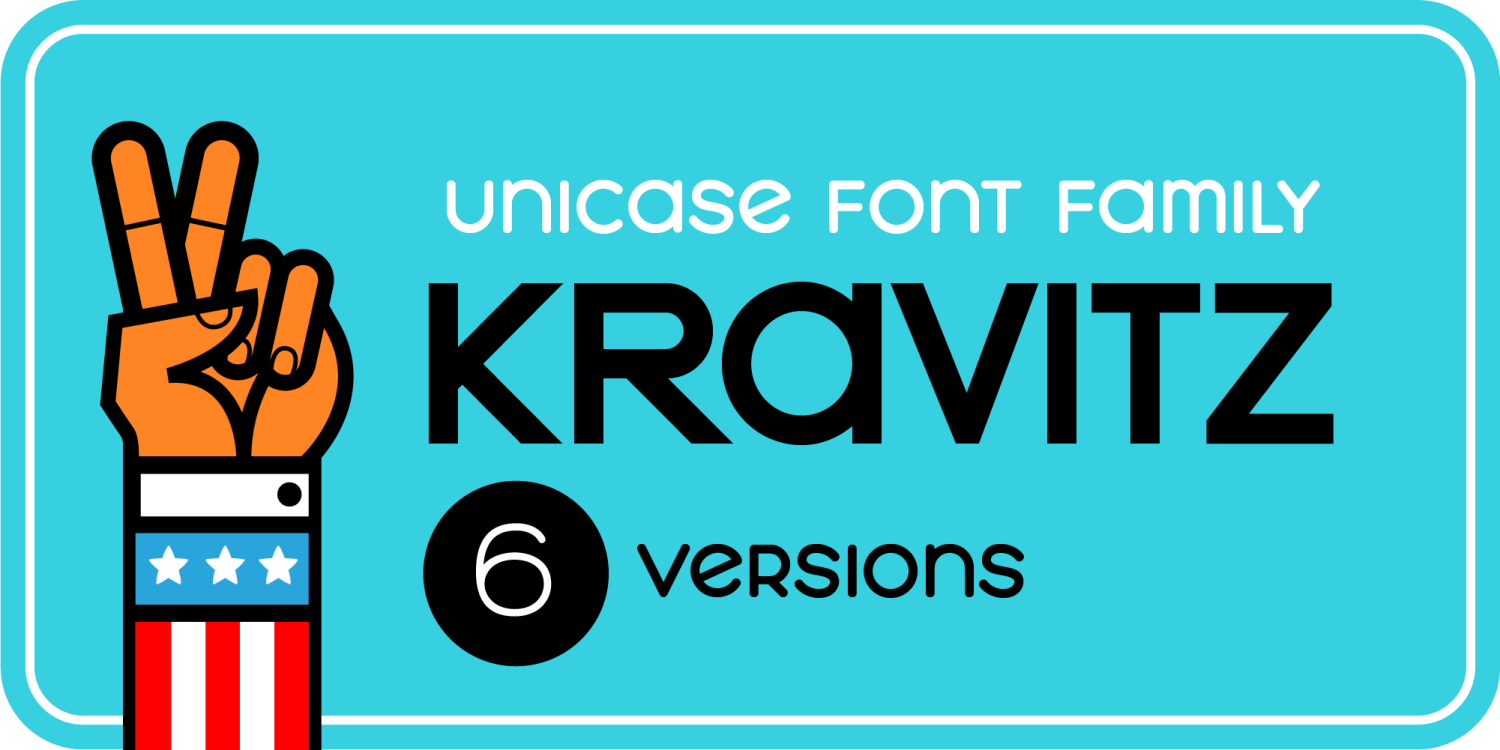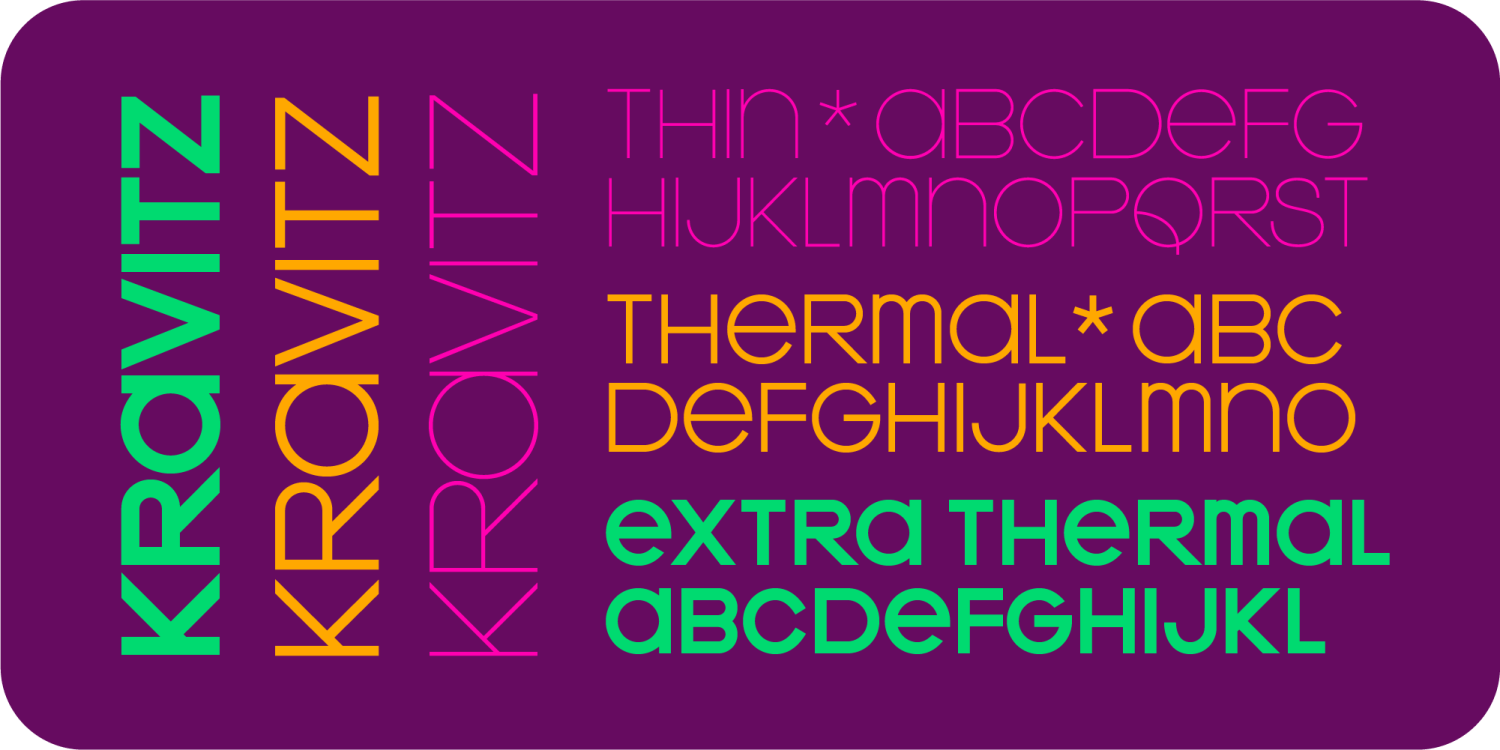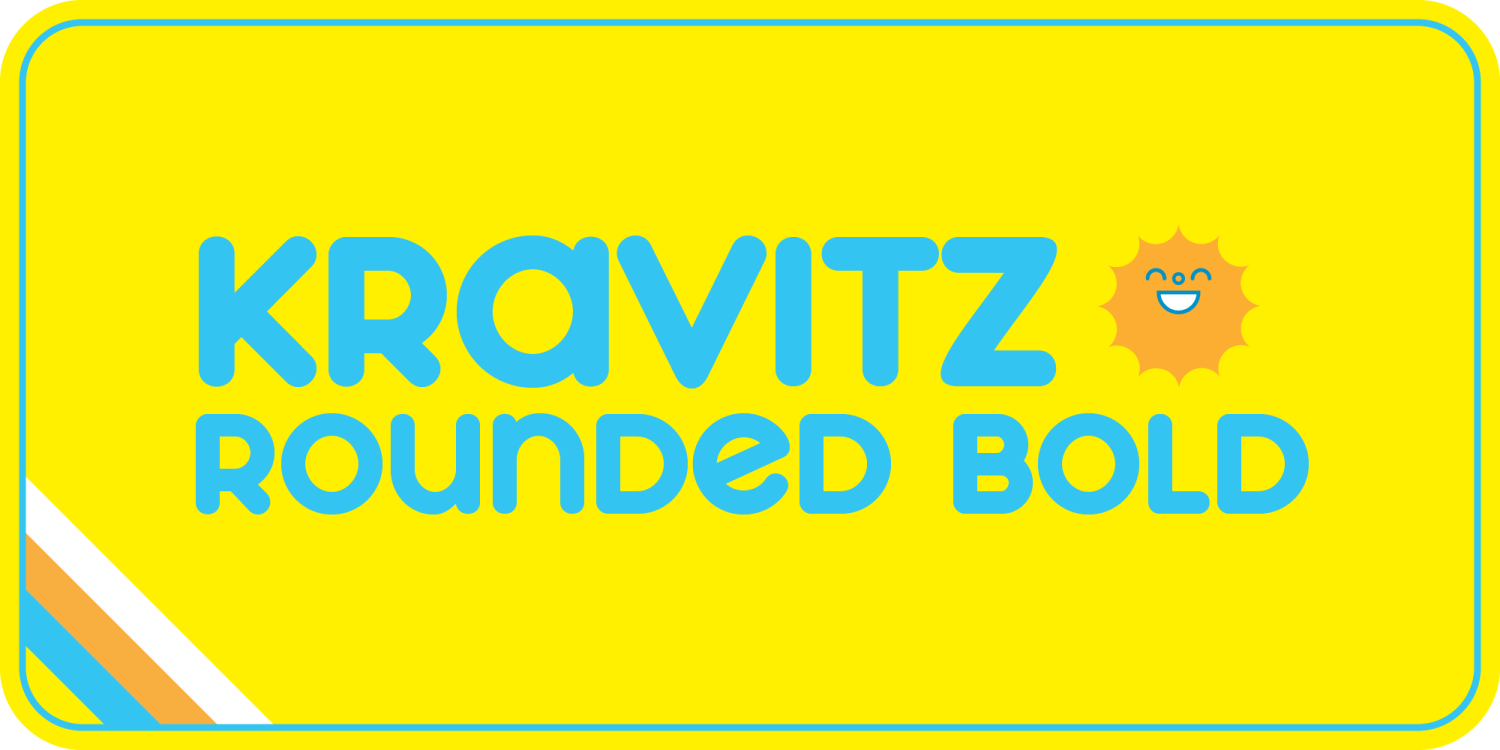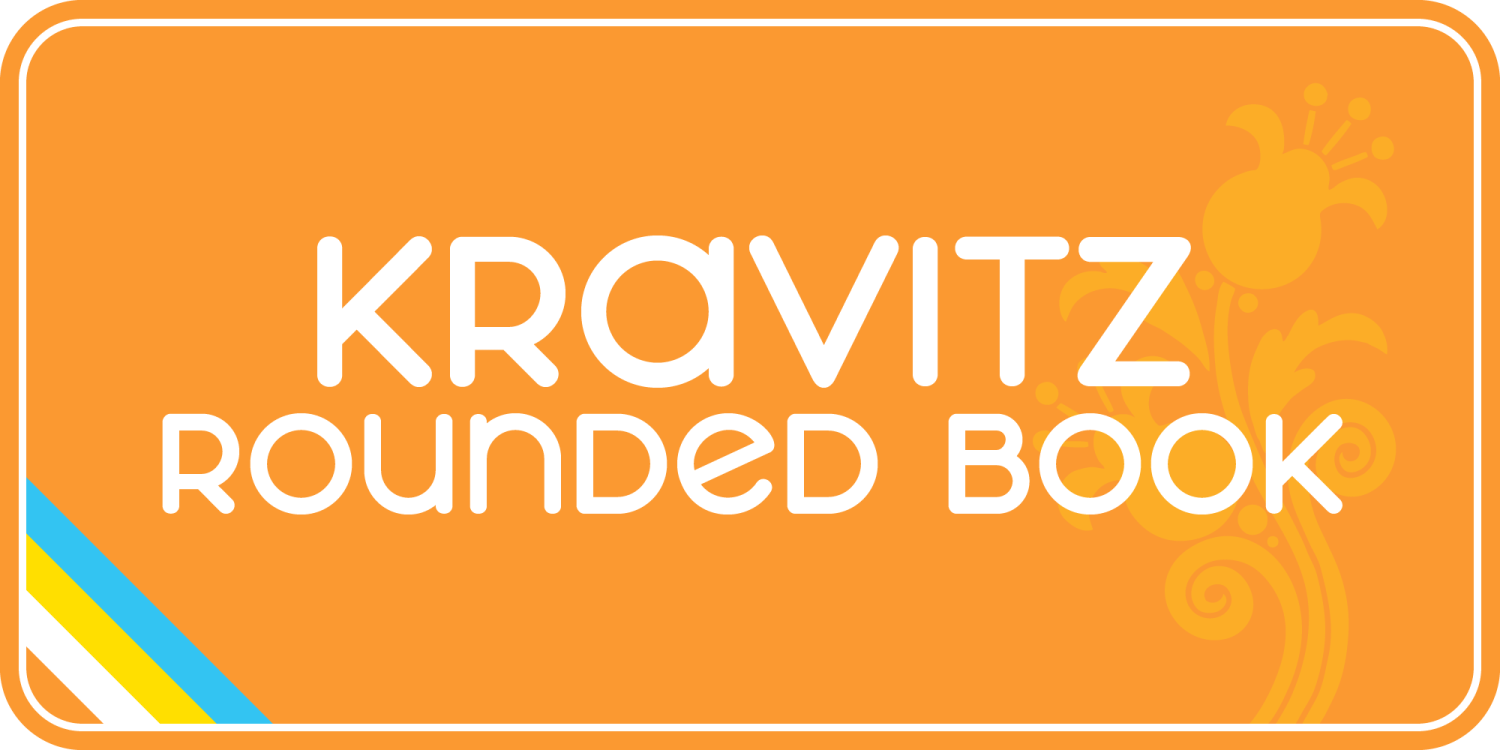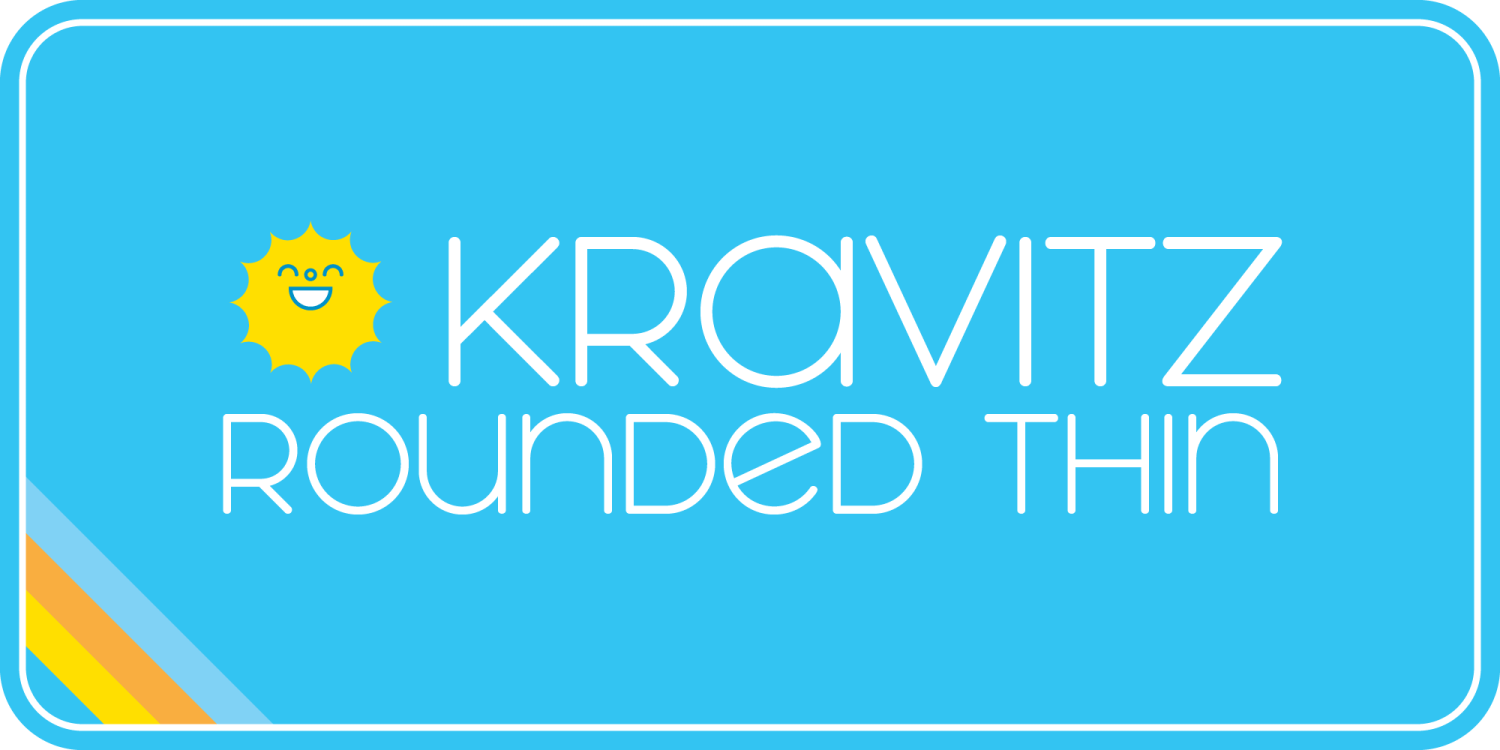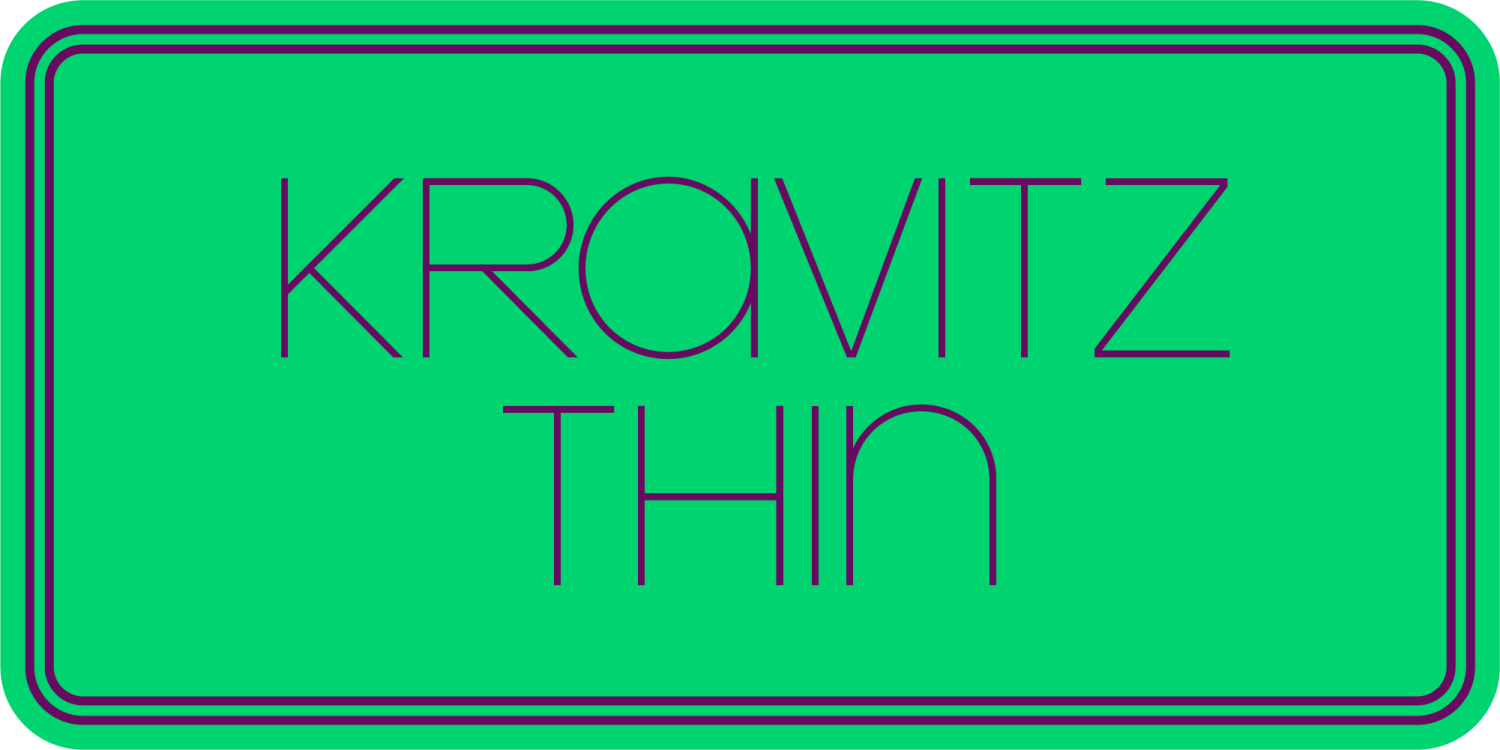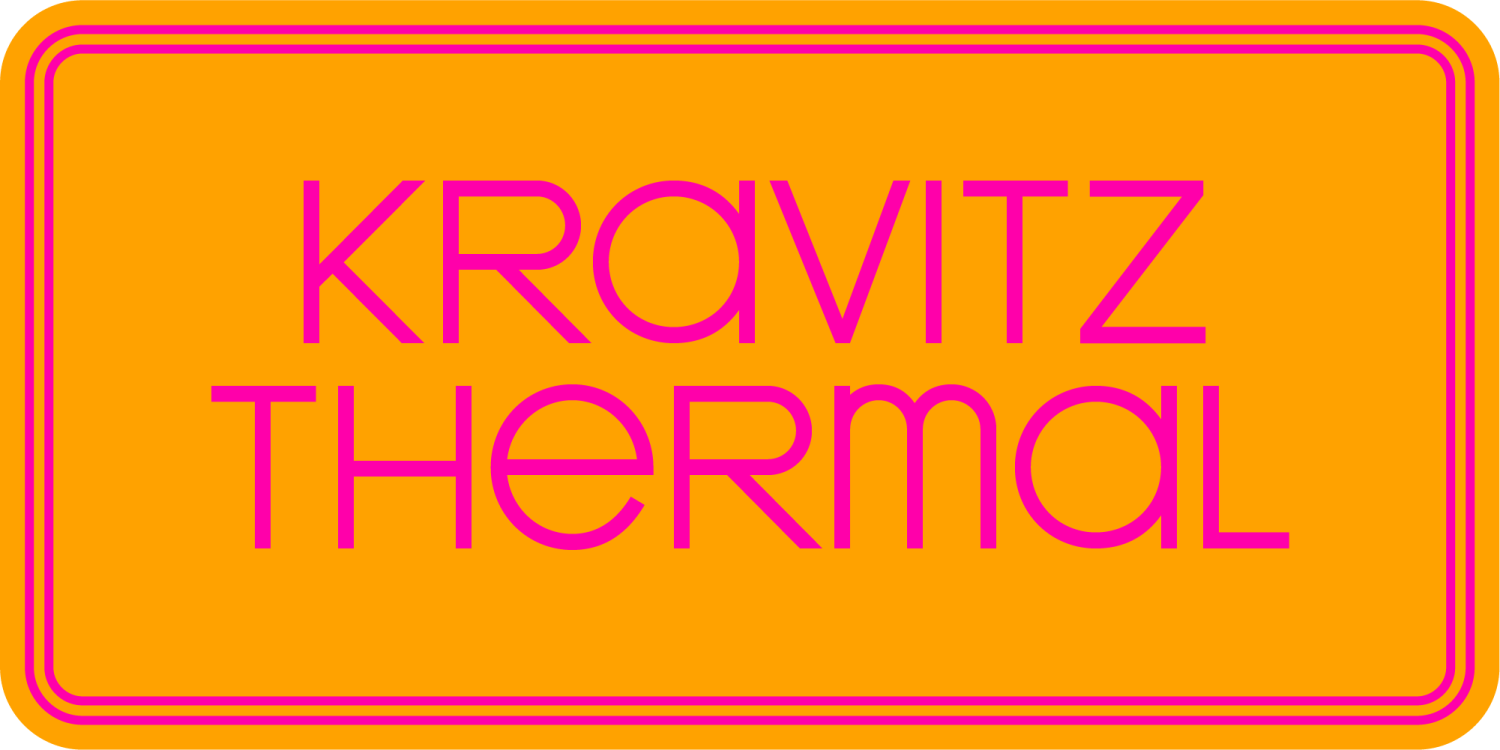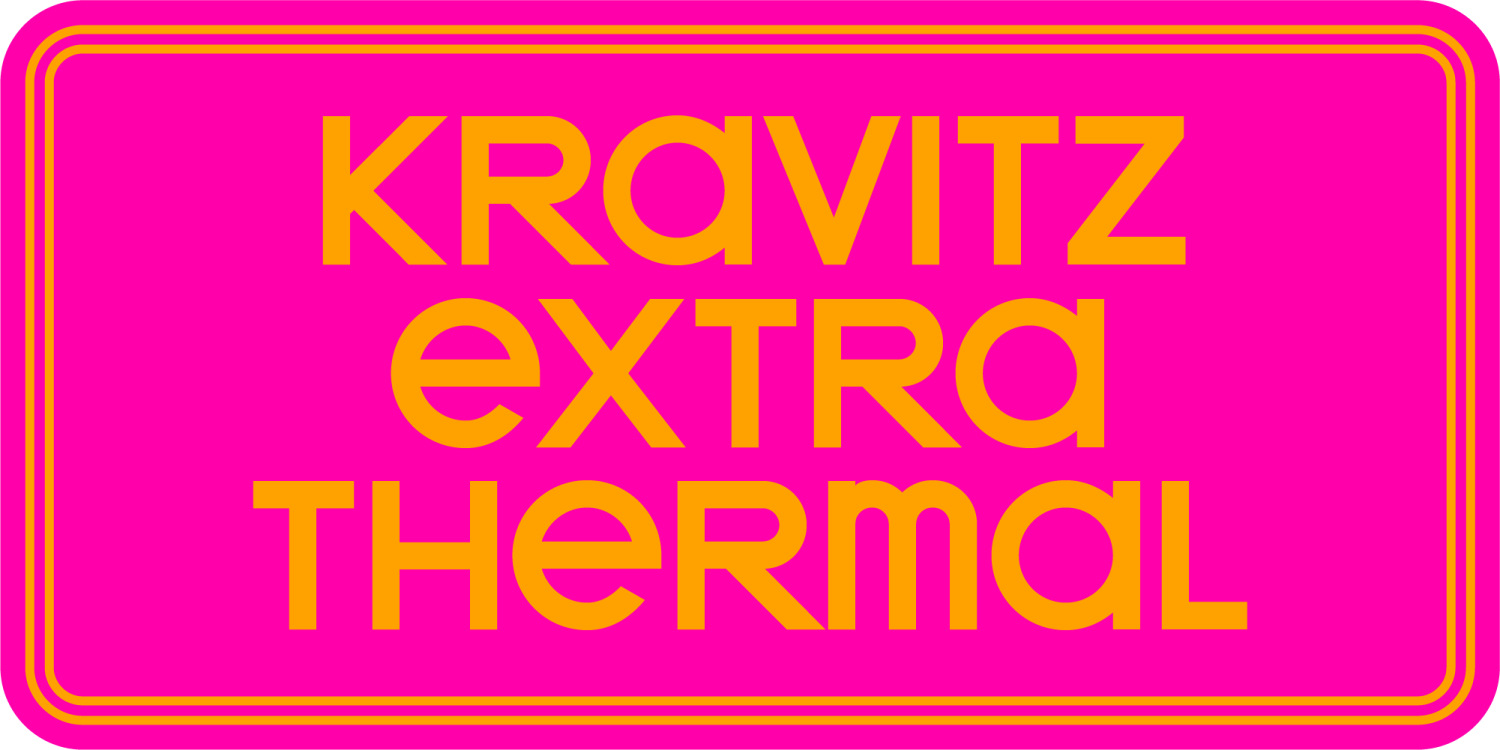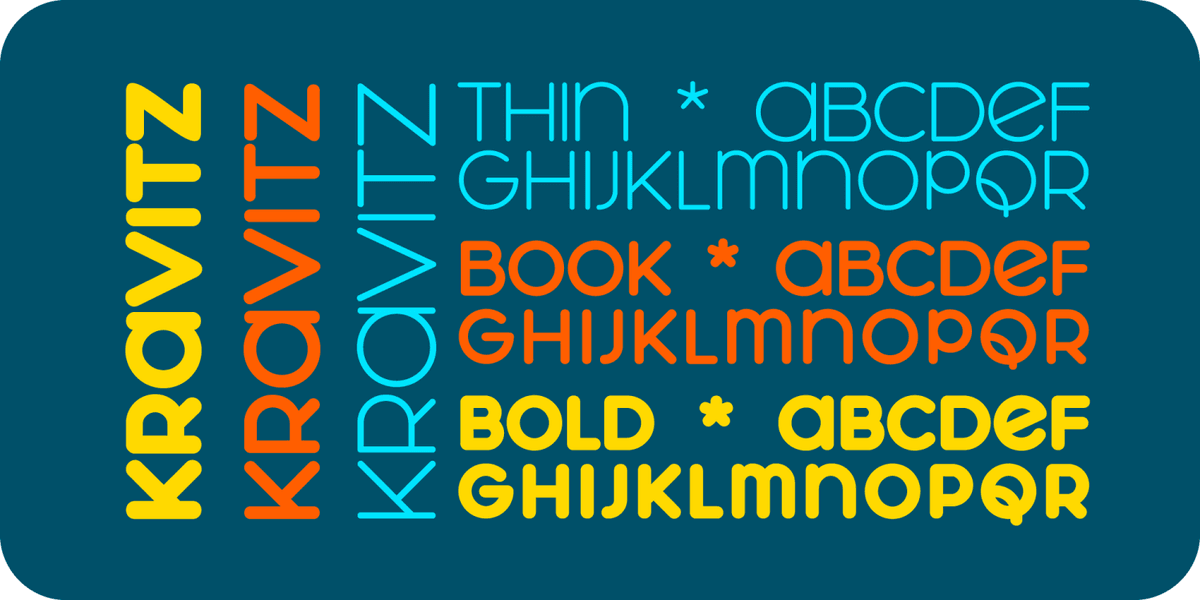
This is a good font family. It could be classified as a classy late '70's disco or as a totally awesome futuristic fonts. Basically, what you got here is a really thin alphabet, a thicker one and the thickest one. Extra Thermal is the thickest possible verison I could make for this font. I think it is easiest to read of the three choices. It is the best kerned, and it emits love. Check out the lovers in this picture. They are totally into this font. He's saying, "Hey baby, why don't we kick back to the crib and type something with Kravitz Extra Thermal." These fonts are so plain they becomes super rad. I really want to name these fonts "Rhinestone", but I didn't think this would be the best opportunity this time. The entire Kravitz family was polished up by the professionals at Font Bros and is available in its new glory in breathtaking OpenType.